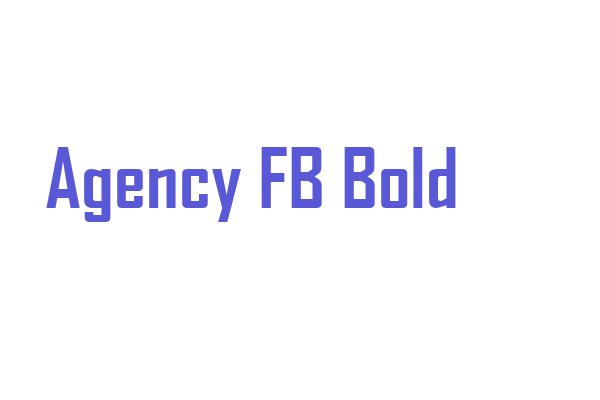
Agency FB Bold is a sleek and modern sans-serif font designed by The Font Bureau, Inc. It belongs to the Agency FB font family and features a bold weight. This font is perfect for creating eye-catching headlines, logos, and branding materials that require a strong and impactful design.
Font Name: Agency FB Bold
Designer: The Font Bureau, Inc.
Font Family: Agency FB